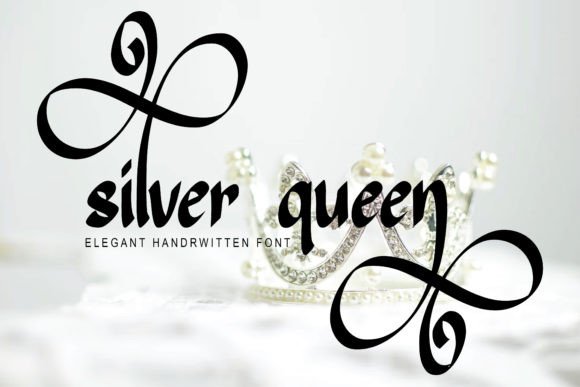
Introducing Silver Queen, a timeless and elegant script font, delicately handwritten to add a touch of sophistication to your creative projects. Journey into the world of refined typography, where every letter dances with grace and harmony. Its timeless appeal makes it the perfect choice for branding, invitations, stationery, and social media posts that demand elegance and class.
Let Silver Queen adorn your designs with its flowing curves and effortless style. Each character, meticulously crafted, exudes a distinct personality that elevates your messages beyond words. Experience the joy of creating harmonious layouts, where every element seamlessly blends together, thanks to Silver Queen's carefully balanced strokes and kerning.
Unlock the full potential of Silver Queen's versatile charm. With its broad range of applications, from logos and branding to invitations and wedding designs, this font effortlessly adapts to your creative vision. Let it grace your social media posts, adding a touch of sophistication that captures attention and leaves a lasting impression.
With Silver Queen by your side, you'll embark on a creative odyssey, where imagination knows no bounds. Its PUA encoding opens up a world of possibilities, granting you easy access to a treasure trove of glyphs and ligatures. Unleash your creativity and explore endless design combinations, transforming ordinary words into captivating works of art.
Choose Silver Queen and witness the transformation of your designs into masterpieces. Its timeless elegance will elevate your branding, adding a touch of luxury and professionalism. Your invitations and stationery will exude a charm that captivates hearts, leaving a lasting impression on your recipients. Let Silver Queen be your muse, inspiring you to create designs that resonate with beauty and sophistication.
Welcome Silver Queen into your creative arsenal and embark on a journey of typographic excellence. Its versatility knows no bounds, adapting seamlessly to a multitude of projects, from print to digital. Experience the joy of crafting designs that captivate and inspire, leaving an indelible mark on the hearts of your audience.